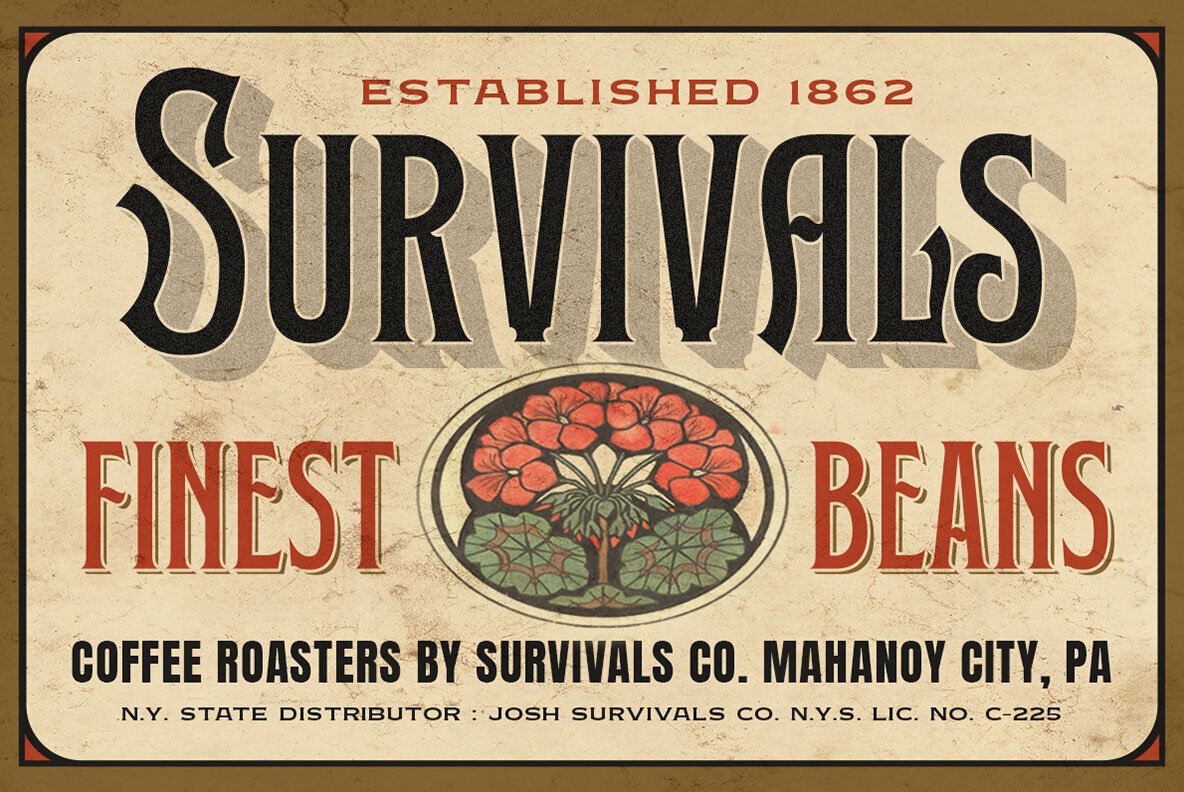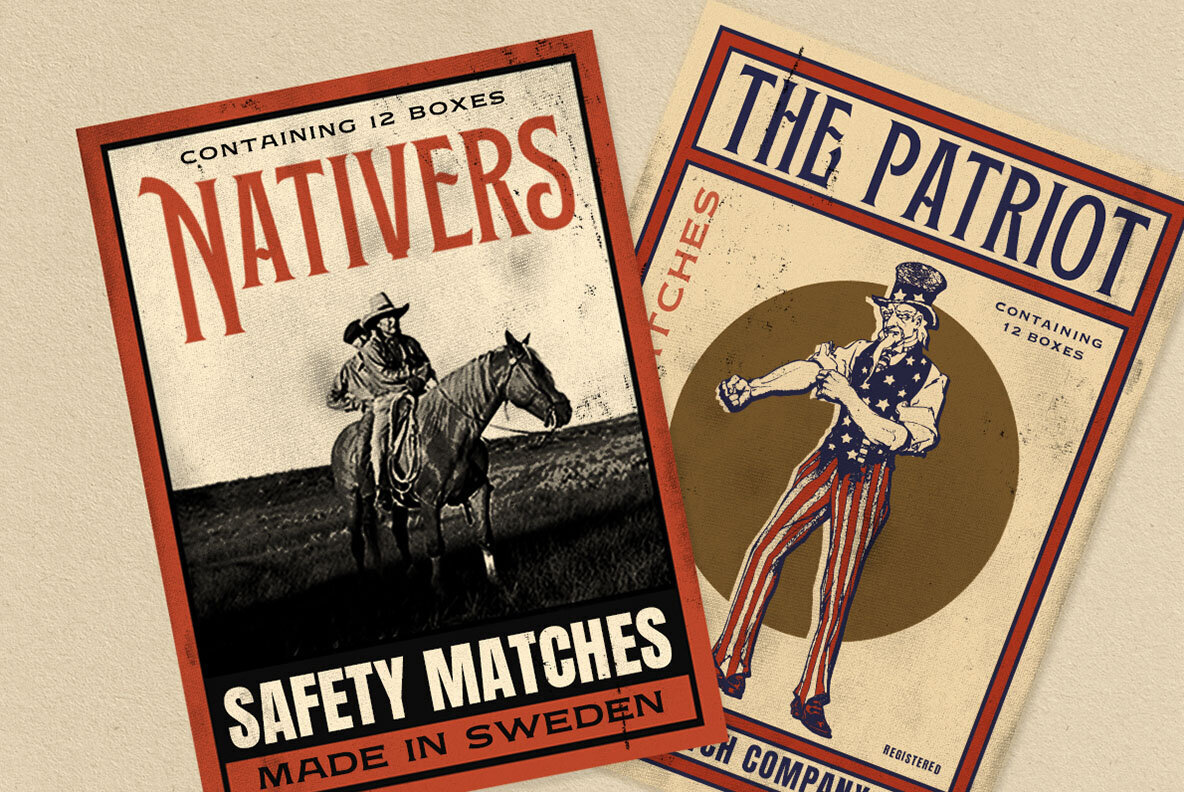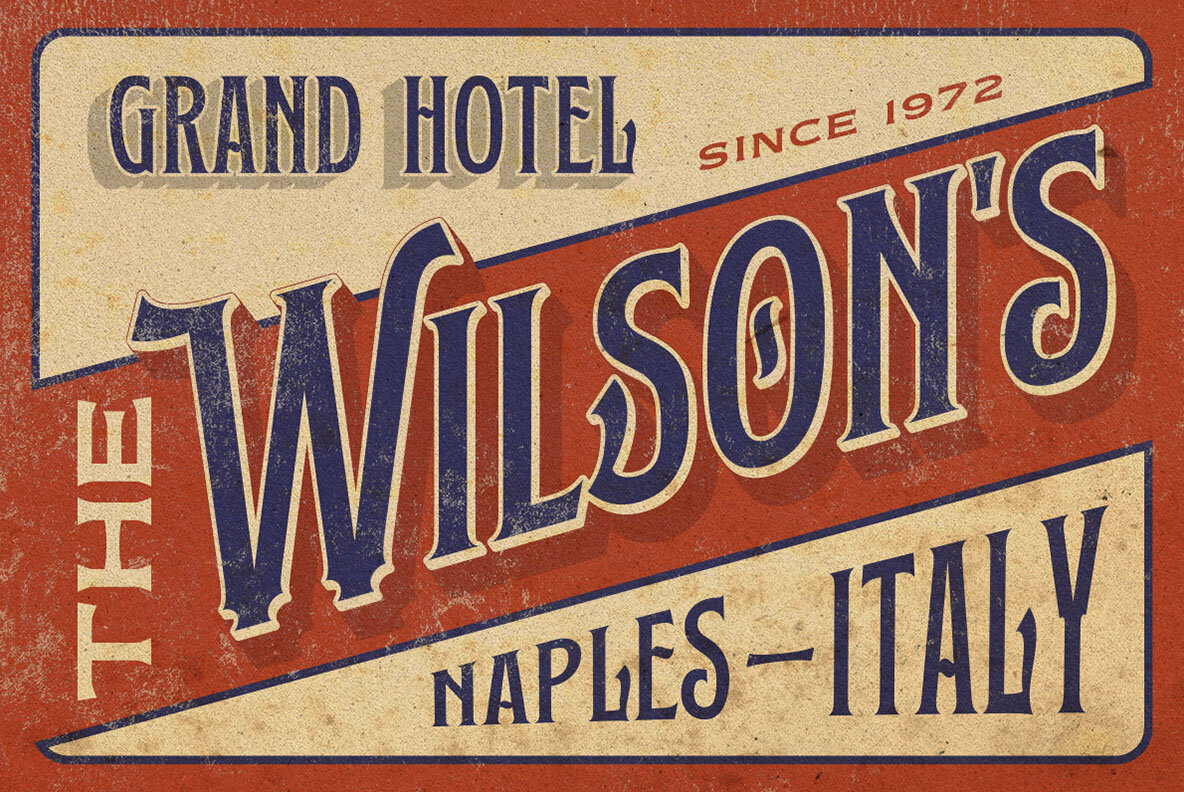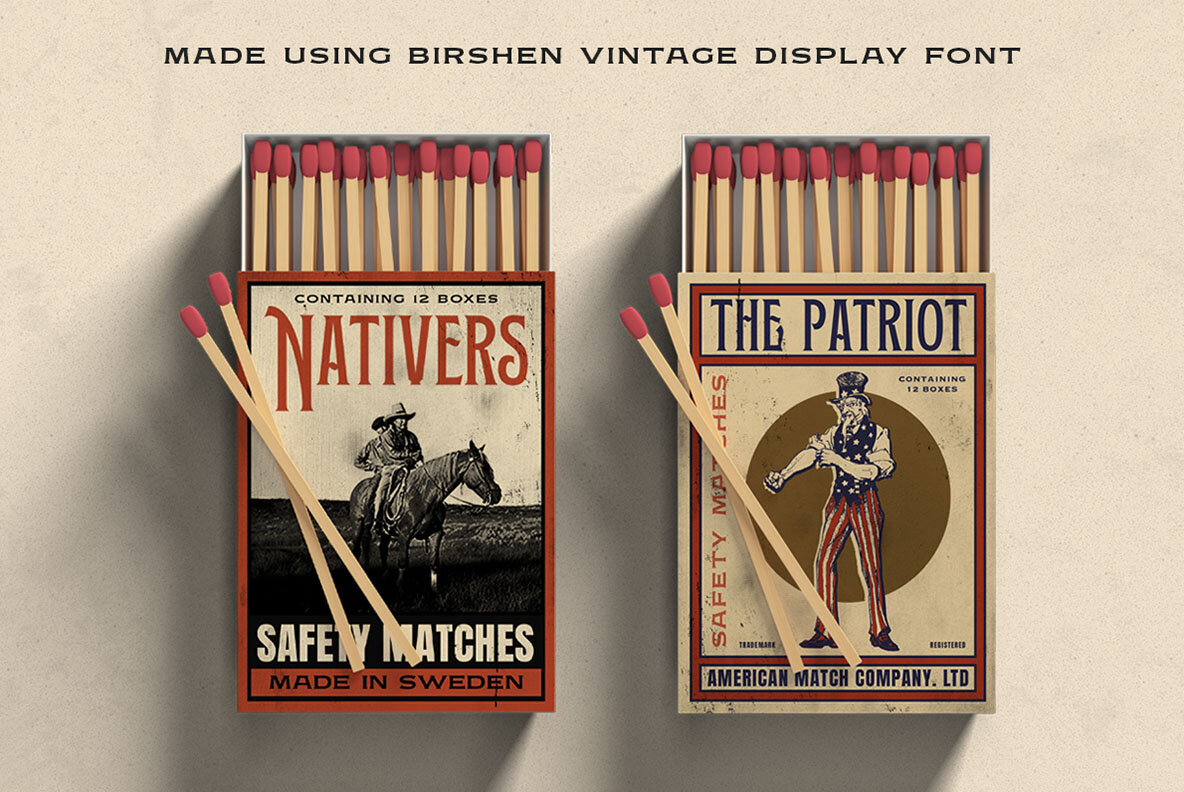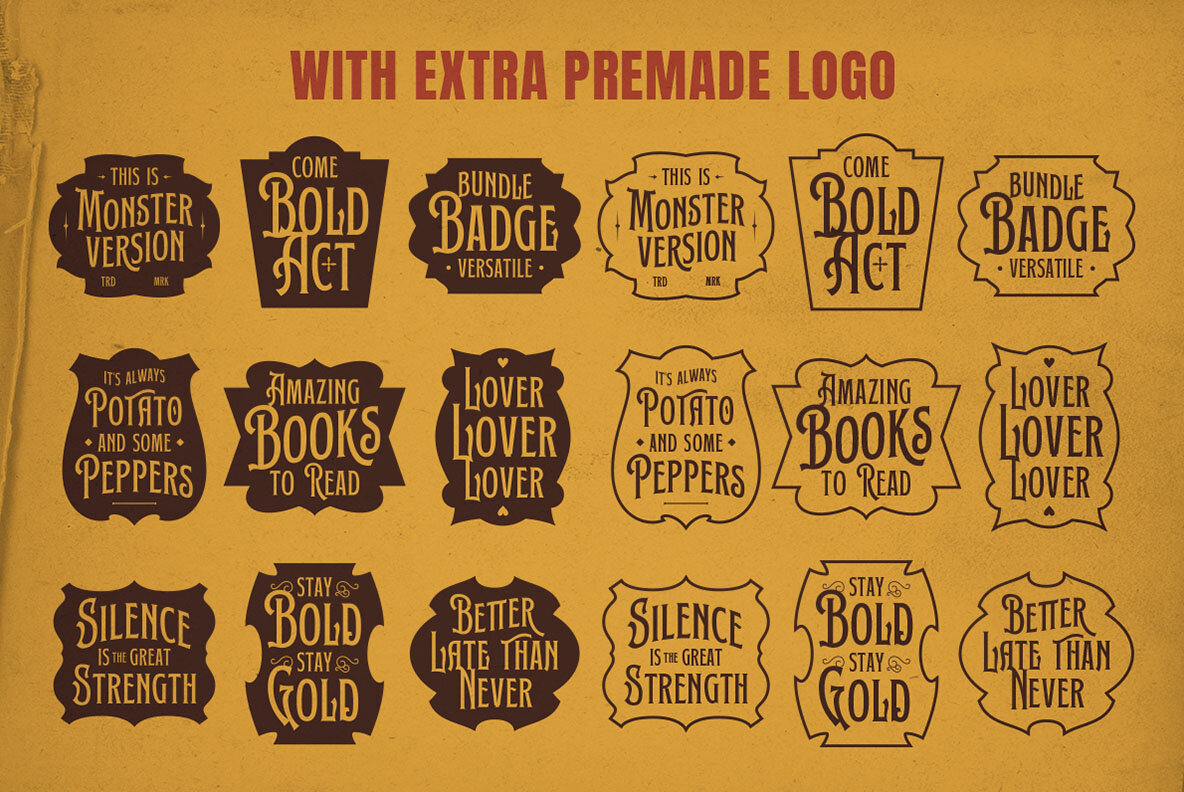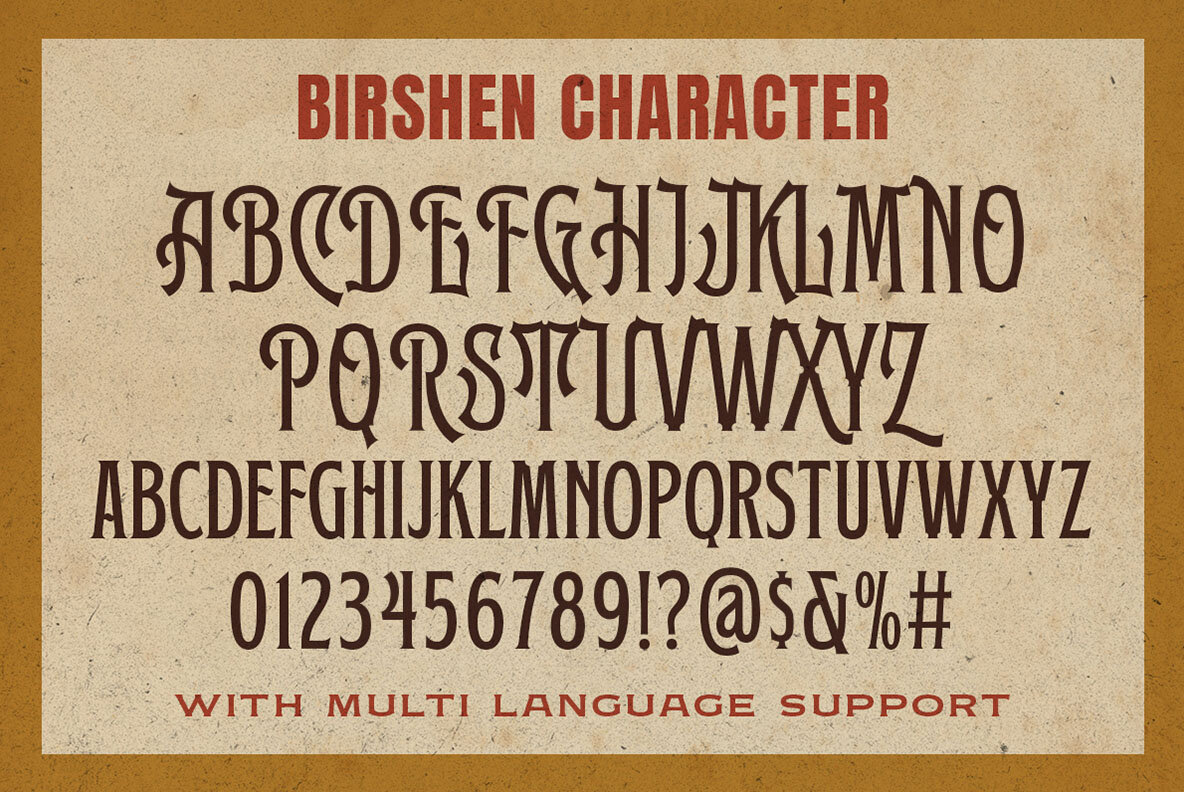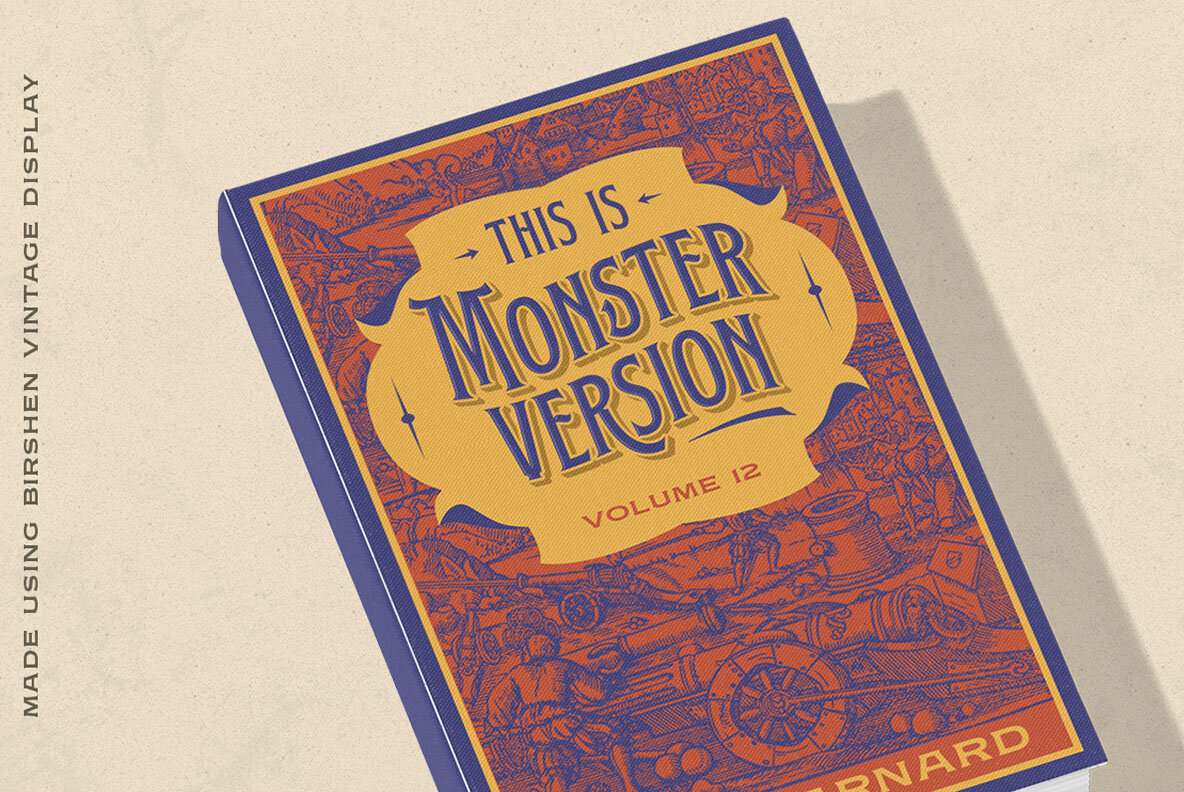
Birshen Font
Birshen is a vintage serif font with a classic 60s and 70s signage-inspired design. Ideal for logos, invitations, labels, magazines, books, greeting or wedding cards, packaging, fashion, makeup, stationery, novels, and various advertising purposes.